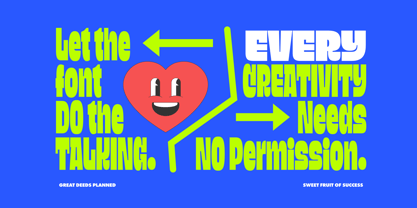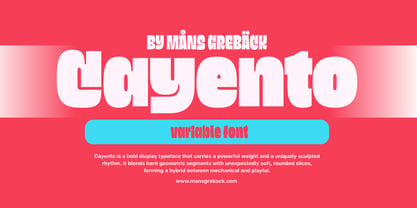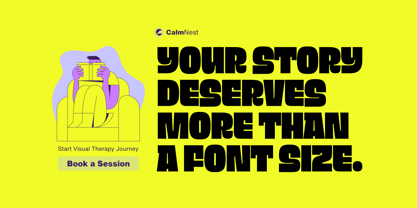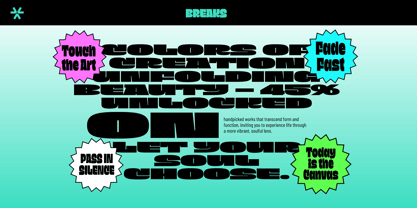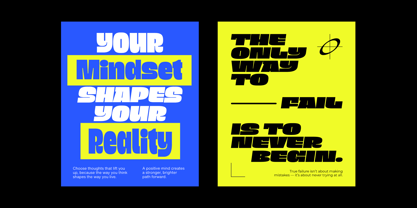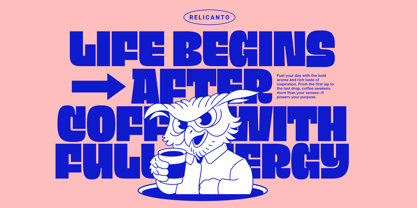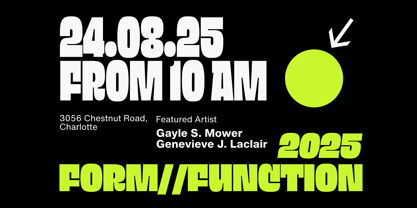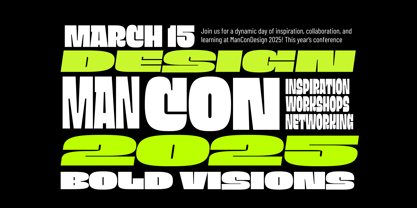
Cayento
Cayento Variable is a bold display typeface that carries a powerful weight and a uniquely sculpted rhythm. It blends hard geometric segments with unexpectedly soft, rounded slices, forming a hybrid between mechanical and playful. The result is a visual language that’s both confident and curious.
The font has an exaggerated blackness and compact structure that feels assertive, but each character is broken with precise cuts and flowing curves, giving it a dynamic movement. Whether seen in its Regular, Wide, or Narrow versions, Cayento Variable speaks with punch and personality—like a retro-futuristic poster headline or the name on the side of a rocket-themed arcade cabinet. With its wide range of styles and variable capabilities, the Cayento family adapts effortlessly to different visual tones.
As a variable font, a single font file is used to add width and weight, allowing for a perfect adjustment by the graphic designer, in modern software such as Adobe Illustrator, Photoshop or online CSS.
The font is built with advanced OpenType functionality and guaranteed top-notch quality, containing stylistic and contextual alternates, ligatures and more automatic and manual features; all to give you full control and customizability.
It has extensive lingual support, covering all Latin-based languages, from North Europa to South Africa, from America to South-East Asia. It contains all characters and symbols you'll ever need, including all punctuation and numbers.
Designed by Mans Greback, a Swedish type designer known for his wide-ranging and energetic font creations. With a passion for expressive letterforms and technical precision, his work bridges artistic character with practical performance.
"Cayento started as a simple challenge I gave myself. I sketched a blocky logotype with sharp corners and big, loud forms, but something about it felt too predictable. So I started cutting into it—literally. I broke the curves, interrupted the flow, and adjusted it to feature irrational proportions. That’s when the energy kicked in.
I wanted the font to feel like a cook-up between old-school graffiti and modern design—a kind of funky weight with futuristic curiosity. The result was a typeface that radiated a friendly warmth with a hot edge, which I tried to capture in its name.
It’s a loud font, but not angry. Cayento is just excited to exist."